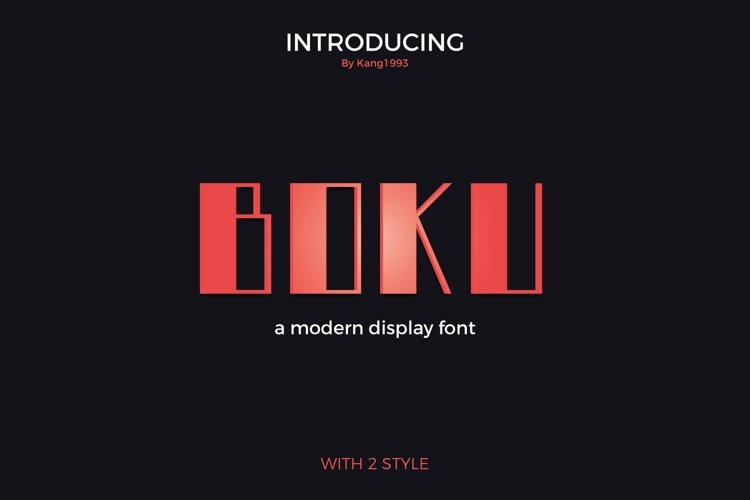
Apocalyptic, urban and bold, Boku works very well on posters and t shirts.
Boku has Lowercase, Uppercase, Number & Punctuations. This font has 2 Versions:
BOKU SOLID
BOKU OUTLINE